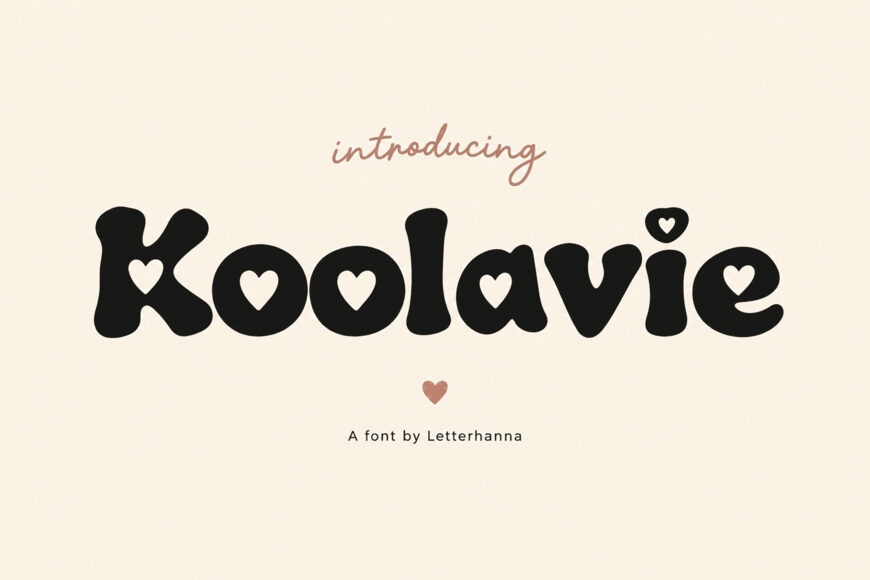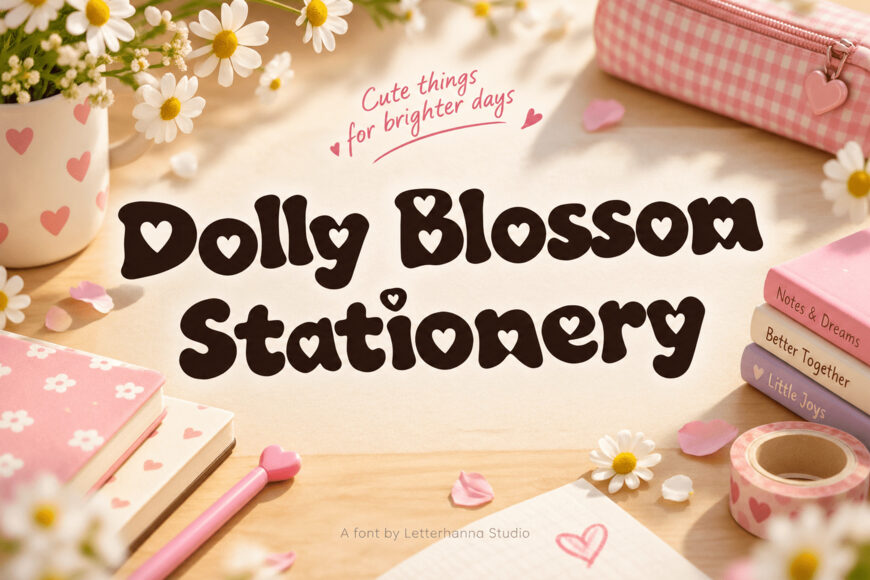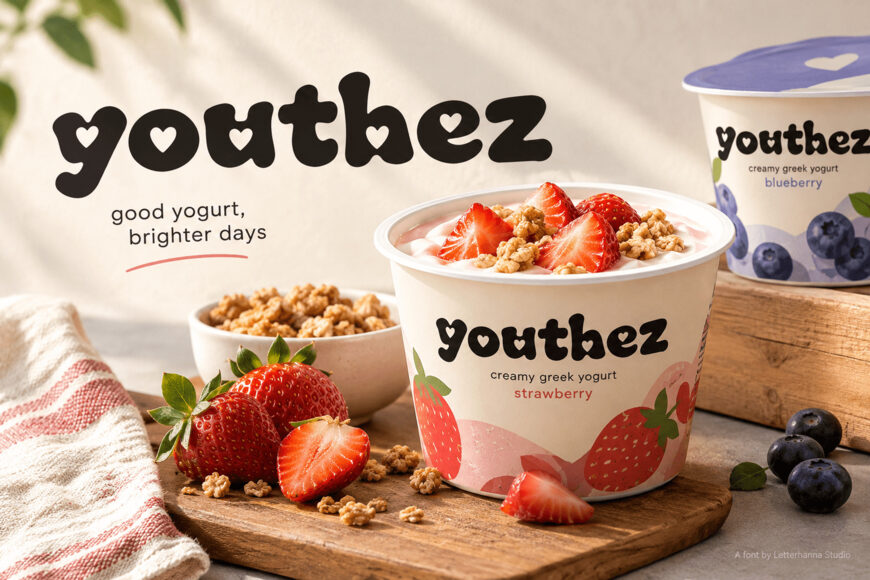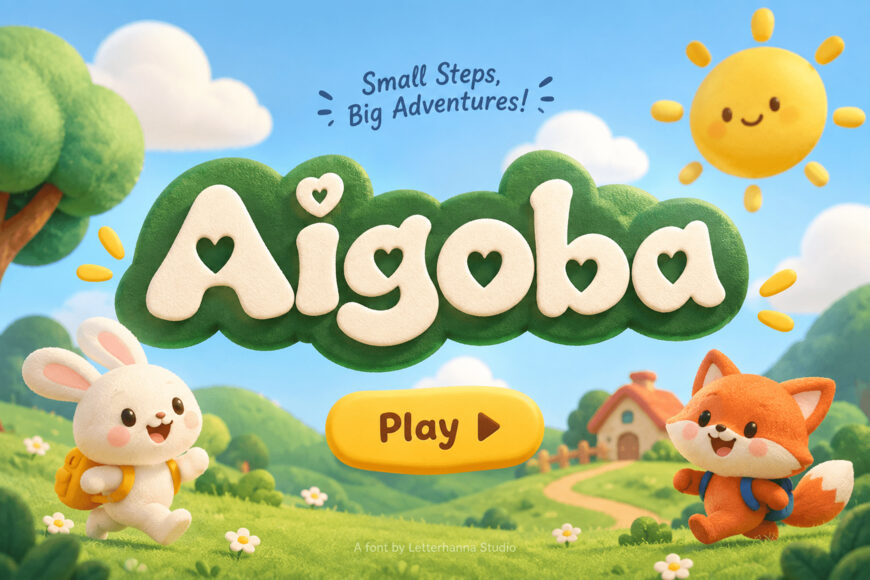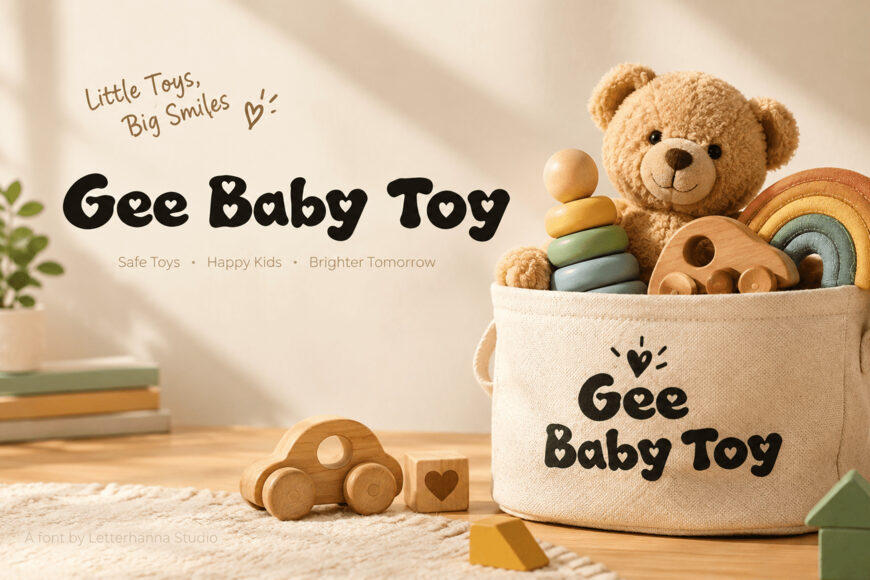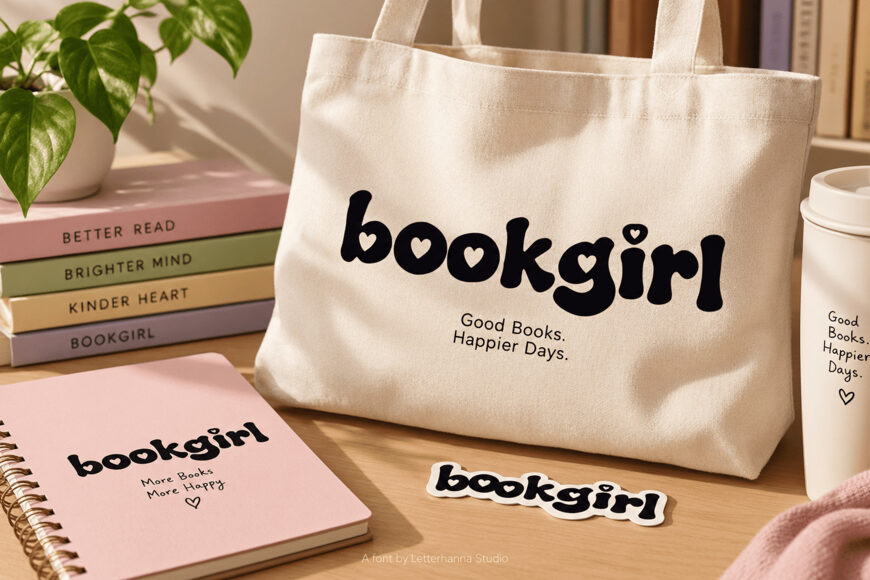
Koolavie blends retro groovy curves with a modern kawaii twist. Every rounded letterform feels soft, bold, and full of personality — the kind of type that makes people smile on sight. This font isn’t just cute — it’s strategic. Brands selling comfort, joy, or playfulness need type that does emotional heavy lifting instantly.